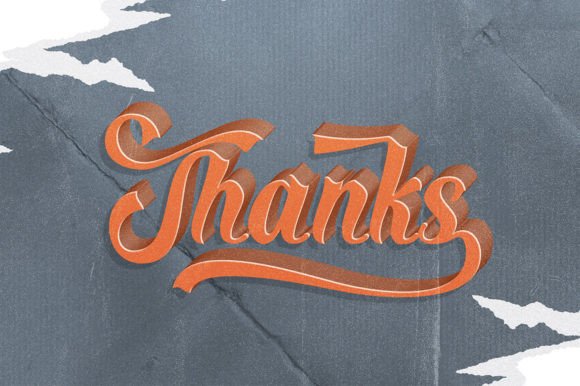
Nagota Font
Nagota is a one-of-a-kind font that combines elegance and uniqueness. Its ornate details and delicate letterforms make it perfect for adding a touch of elegance to wedding invitations, logos, and other design projects where a distinctive touch is desired. It is also PUA encoded which means you can access all of the glyphs and swashes with ease!